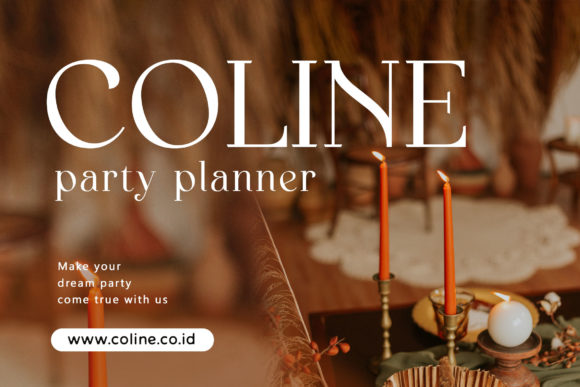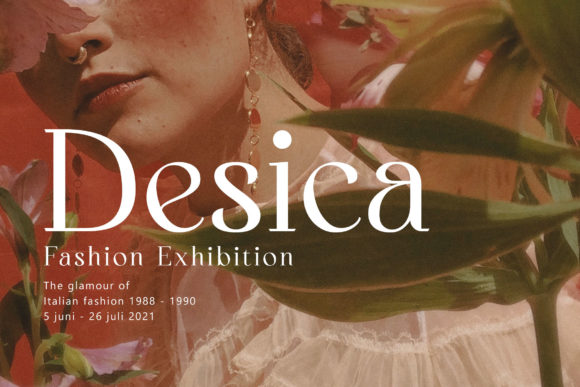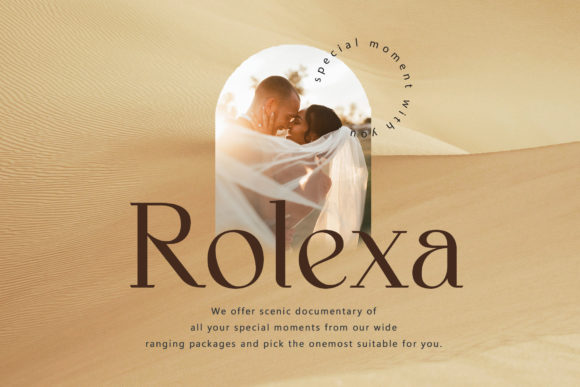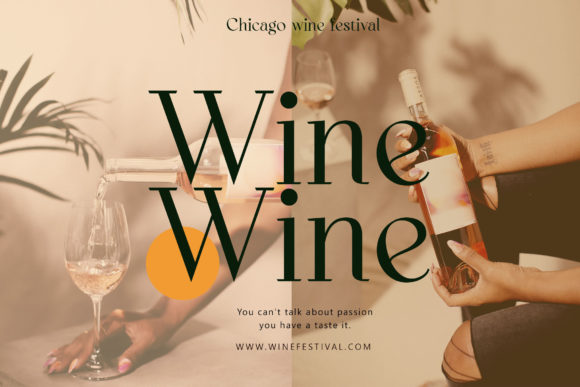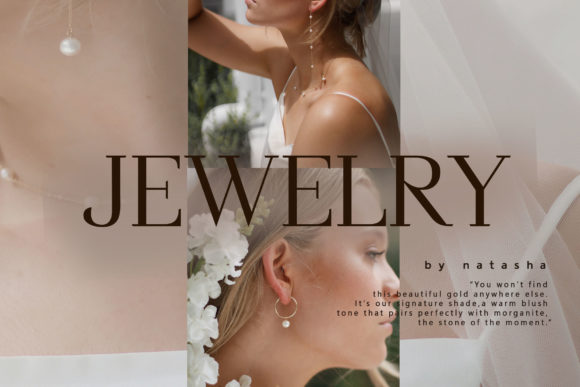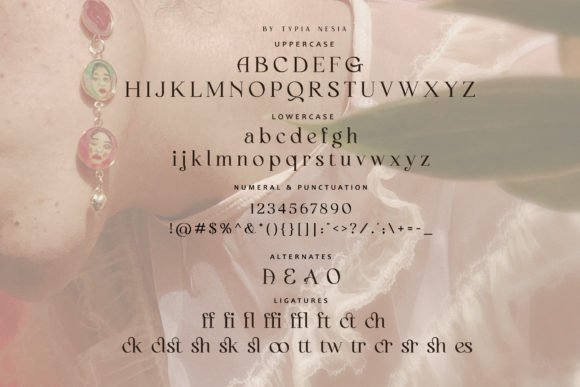
Bella Queta Font: Elevate Your Designs with Elegance and Simplicity
Bella Queta is a beautifully crafted serif font that embodies the perfect blend of simplicity and elegance. Designed to capture the hearts of designers and crafters alike, Bella Queta has the potential to elevate your creative projects to new heights. In this article, we’ll explore the features, benefits, and uses of Bella Queta, and why it’s becoming a favorite among design enthusiasts.
The Design Behind Bella Queta
Bella Queta’s design is rooted in the principles of classic serif typography, with a modern twist. The font’s creator has masterfully balanced the delicate lines and curves to produce a clean, yet sophisticated look. Each letterform is carefully crafted to exude a sense of refinement and poise, making Bella Queta suitable for a wide range of design applications.
Key Features of Bella Queta
- Simple yet Elegant: Bella Queta’s serif design is both understated and sophisticated, making it perfect for projects that require a touch of refinement.
- Highly Versatile: This font can be used in various design contexts, from print materials like brochures and posters to digital applications such as websites and social media graphics.
- Excellent Legibility: Bella Queta’s clear and concise letterforms ensure that your text remains easily readable, even at smaller font sizes.
- Unique Character: The font’s distinctive character set includes a range of special characters, numerals, and punctuation marks, allowing you to add a personal touch to your designs.
Benefits of Using Bella Queta
So, why should you choose Bella Queta for your design projects? Here are just a few benefits of using this exceptional font:
- Enhance Your Brand’s Visual Identity: Bella Queta’s elegant design can help elevate your brand’s visual identity and create a lasting impression on your audience.
- Streamline Your Design Process: With Bella Queta’s versatility and legibility, you can use it across various design projects, saving you time and effort in the long run.
- Stand Out from the Crowd: Bella Queta’s unique character and classic design make it an excellent choice for designers looking to differentiate their work from others.
Using Bella Queta in Your Design Projects
Bella Queta is an incredibly versatile font that can be used in a wide range of design applications, including:
- Print Materials: Use Bella Queta in brochures, posters, business cards, and other print materials to add a touch of elegance and sophistication.
- Digital Designs: Bella Queta is perfect for websites, social media graphics, and email marketing campaigns, where its legibility and clean design shine.
- Crafting and DIY Projects: Bella Queta can also be used in crafting and DIY projects, such as handmade cards, invitations, and scrapbooking.
In conclusion, Bella Queta is an exceptional serif font that offers a perfect blend of simplicity, elegance, and versatility. Whether you’re a designer, crafter, or DIY enthusiast, Bella Queta has the potential to elevate your creative projects and help you achieve your design goals. With its classic design, excellent legibility, and unique character, Bella Queta is sure to become a favorite among design enthusiasts.